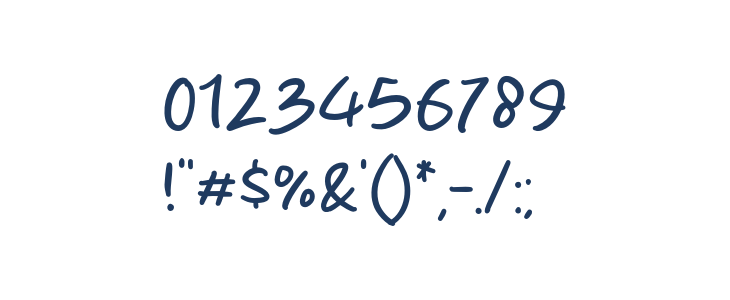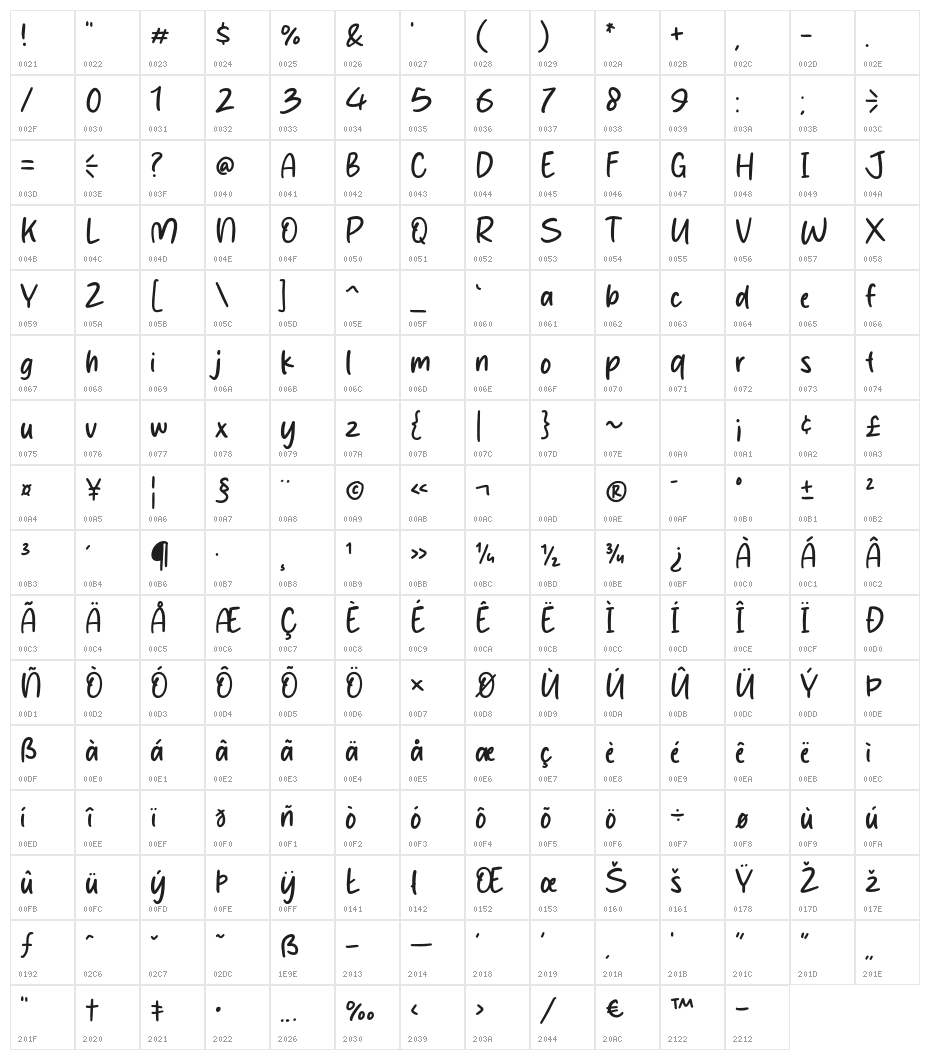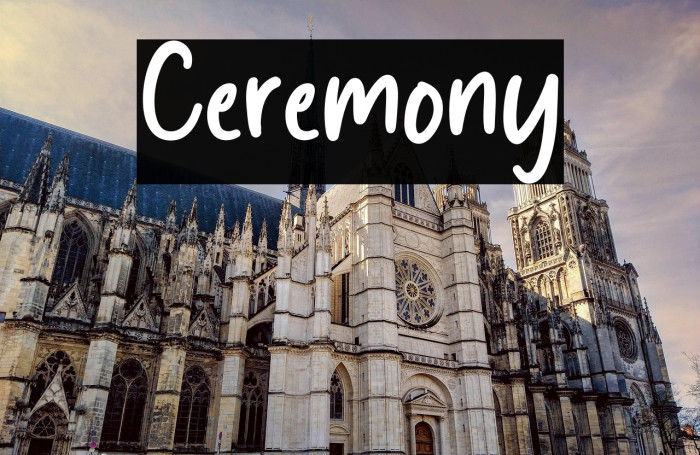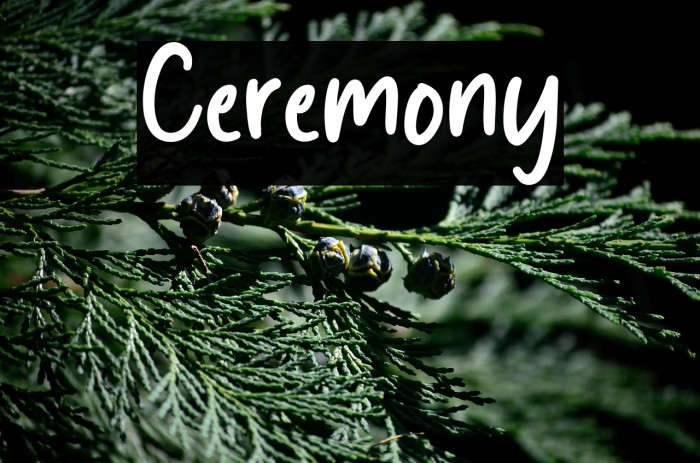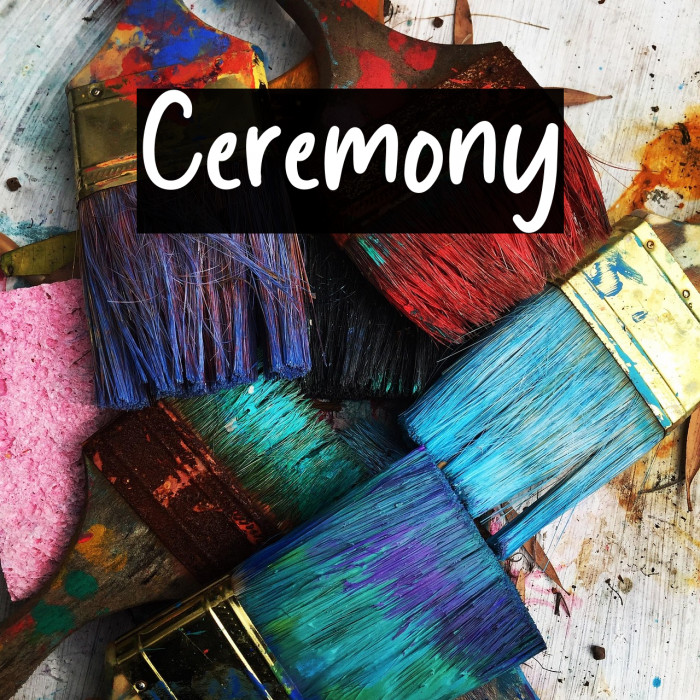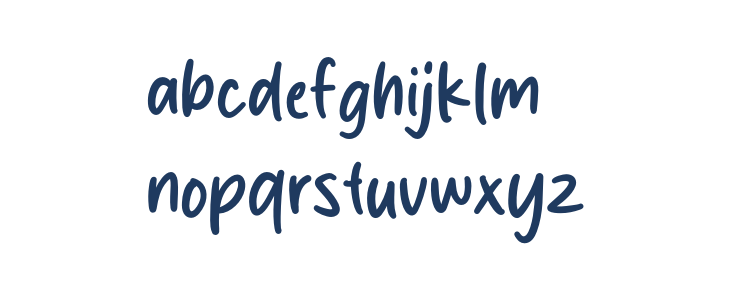
Ceremony Font
Ceremony Description
This font features a playful and casual handwritten style, characterized by its smooth, flowing curves and slightly irregular strokes that give it a natural, organic feel. The letters are bold and rounded, with a consistent thickness that maintains readability while adding a touch of whimsy. The uppercase and lowercase letters are well-balanced, and the numerals and special characters complement the overall aesthetic. This font's friendly and approachable appearance makes it suitable for a variety of creative projects.
| Overall Style | Casual |
| Use Case | Logos, Invitations, Greeting Cards |
| Proposed Projects | Ideal for greeting cards, invitations, children's books, and playful branding. |